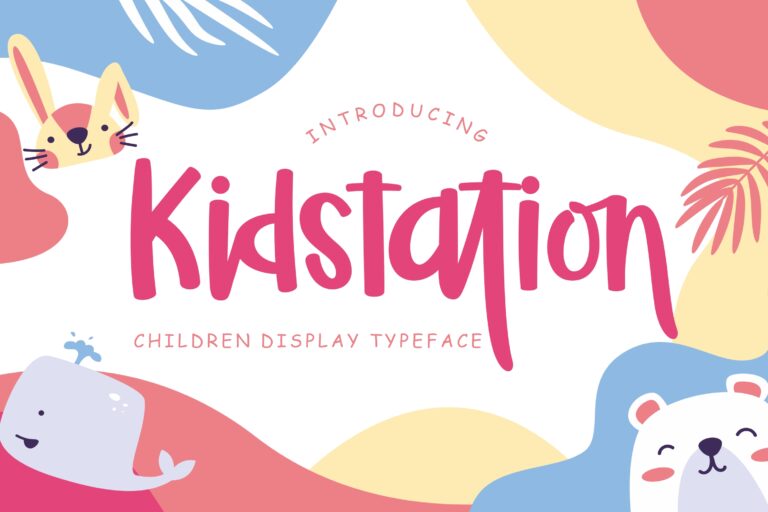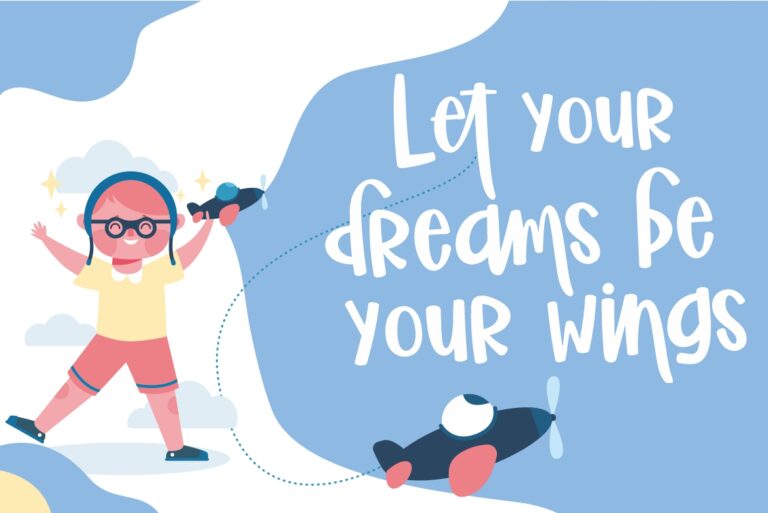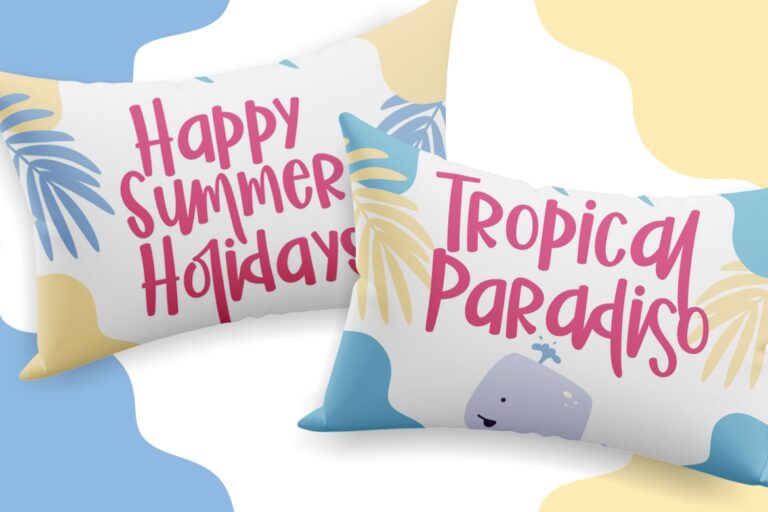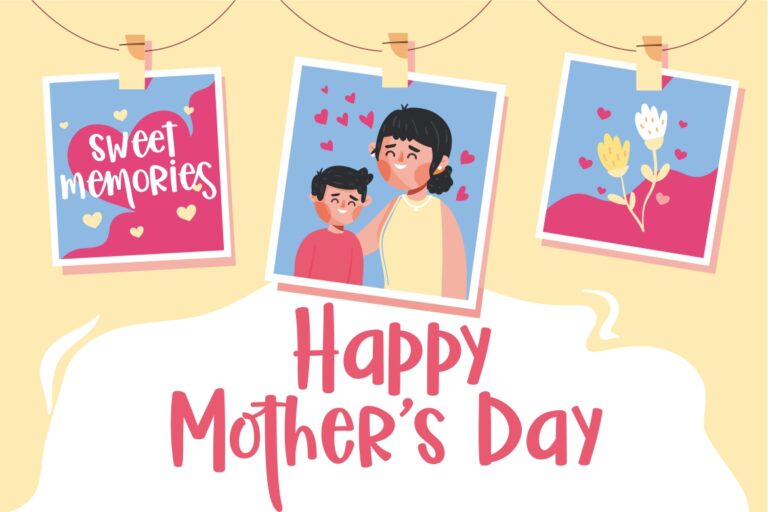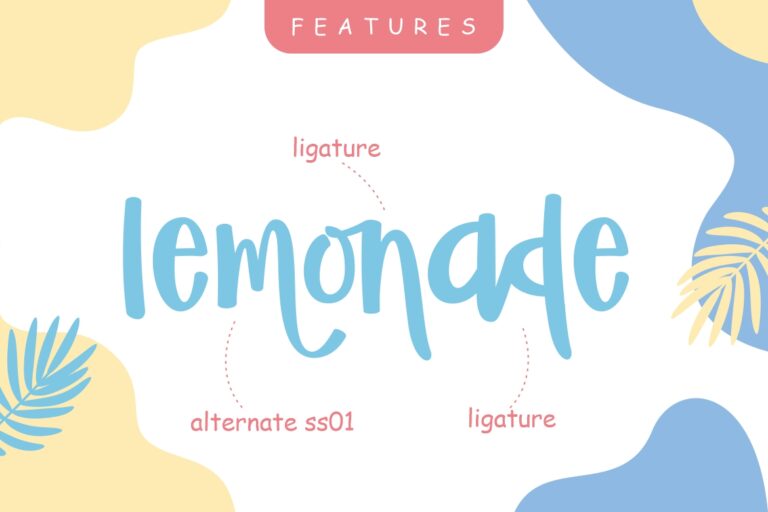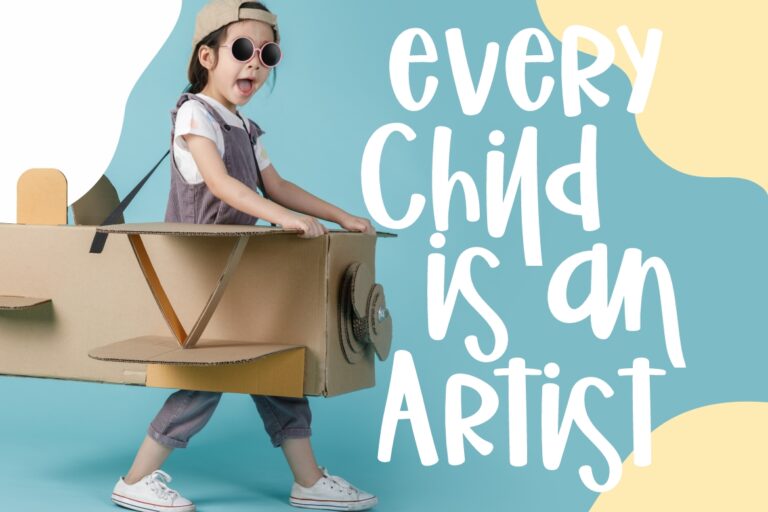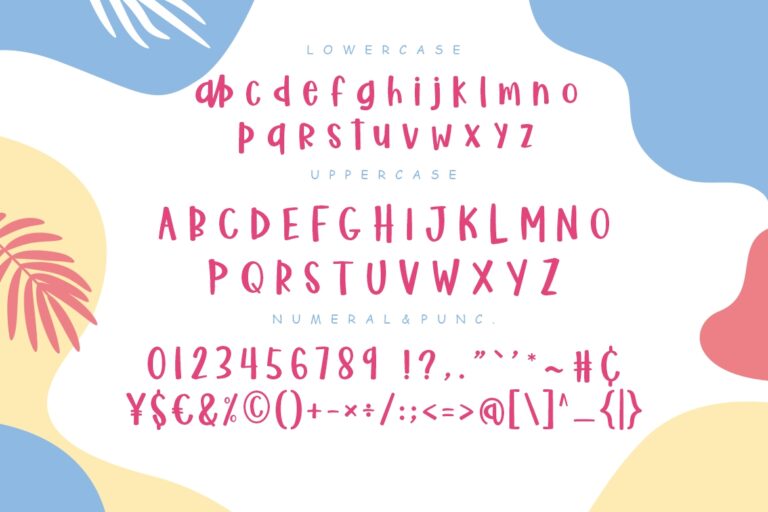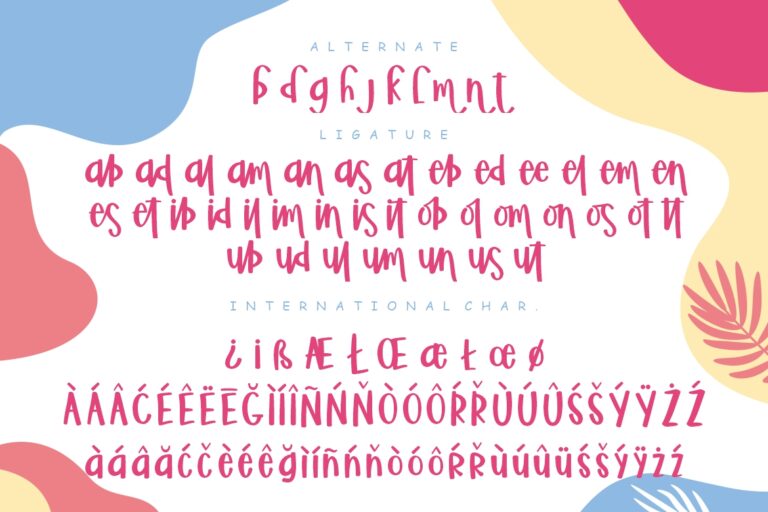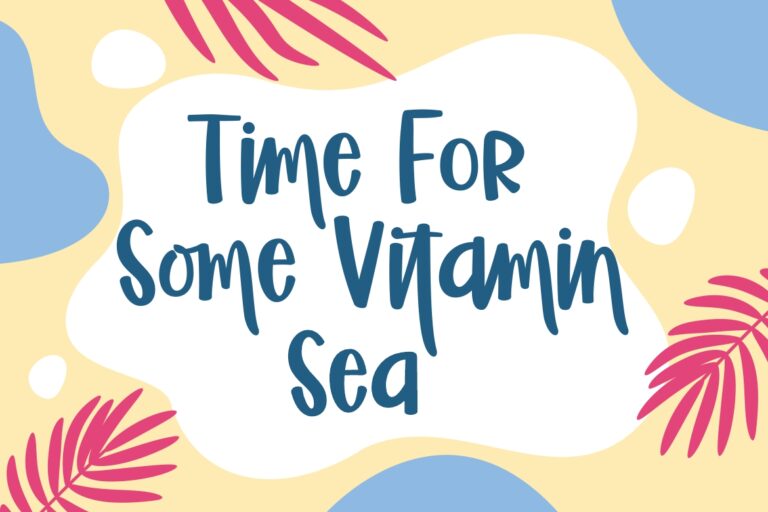
Kidstation a hand brush children display font which perfect for children and kindergarten event.
Kidstation would perfect for photography, watermark, social media posts, advertisements, logos & branding, invitation, product designs, label, stationery, wedding designs, product packaging, special events or anything that need handwriting taste.
- Ligatur & Alternate
Kidstation Fun Children Display Font